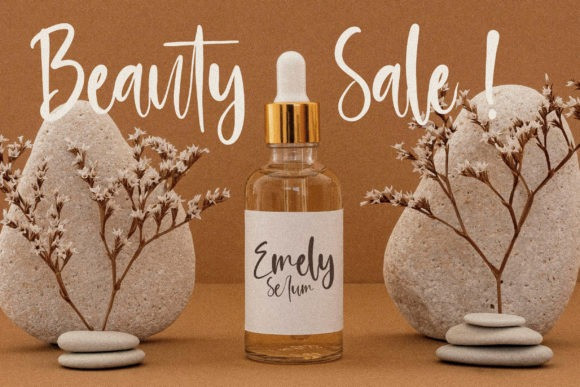
Amsterdam Morning Font
Amsterdam Morning Script Font is a delicate, elegant and flowing handwritten font. It has beautiful and well balanced characters and as a result, it matches a wide pool of designs. Add it to your most creative ideas and notice how it makes them come alive!